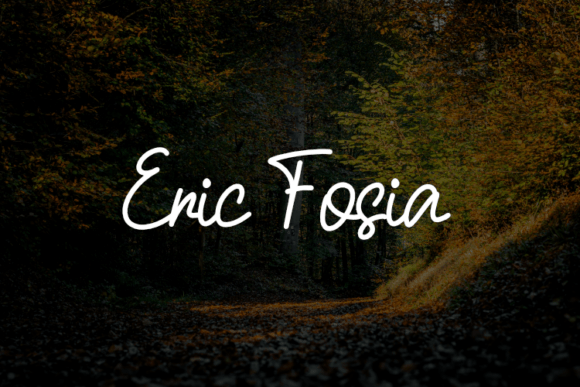
The Ultimate Design Companion: Eric Fosia Font
Remember that moment when you finally nailed the perfect design for your t-shirt campaign? The feeling of excitement and satisfaction was exhilarating, wasn’t it? It’s moments like these that make all the hard work worth it. But, what if you could take your designs to the next level and make them truly unforgettable? Enter the Eric Fosia Font – a versatile and powerful tool that’s about to revolutionize the way you create visually captivating designs.
As a designer, you understand the importance of having the right tools at your disposal. The Eric Fosia Font is a game-changer, offering seamless adoption across various project platforms and software. Its effortless adaptability makes it an invaluable asset for any creative project. Whether you’re working on a t-shirt design, a logo, or any other merchandise, the Eric Fosia Font is sure to elevate your design experience.
Eric Fosia Font Key Features
- Font Family: Eric Fosia Font is a script font family designed by Eric Fosia, offering a range of styles and weights.
- Size and Resolution: Designed to be used at medium to large sizes (around 12-48 points) for optimal legibility and aesthetics, with a resolution of 300 DPI.
- Unique Characteristics: Features a unique blend of elegance and playfulness, with intricate details and connections between letters, making it ideal for creative and artistic projects.
Eric Fosia Font Review
Overall, I was quite impressed with the Eric Fosia Font. It’s a solid choice for designers looking to add a touch of elegance to their projects. ✨ The font’s sleek lines and refined features make it perfect for luxury brands or high-end publications.
The font is highly customizable, with a wide range of weights and styles available. This makes it easy to find the perfect combination to suit your design needs. ✨ The font also supports a wide range of languages, making it a great choice for international projects.
However, there are a few limitations to consider. ⚠️ The font may not be the best choice for body text, as it can be a bit too ornate for long blocks of text. Additionally, the font may not be fully optimized for digital use, which can result in some pixelation at smaller sizes.
- Highly customizable with a wide range of weights and styles
- Supports a wide range of languages
- Sleek and refined features
- May not be the best choice for body text
- May not be fully optimized for digital use
In conclusion, the Eric Fosia Font is a solid choice for designers looking to add a touch of elegance to their projects. While it may have some limitations, it’s a great option for luxury brands or high-end publications.
The Eric Fosia Font is a versatile font suitable for various designs, including:
- Typography-based designs
- Print materials, such as business cards and brochures
- Web designs and digital content
For optimal results, use the Eric Fosia Font in conjunction with other clean and modern fonts to create a cohesive
Alternatives to Eric Fosia Font
Montserrat is a sans-serif font that is highly legible and versatile. It is a great alternative to Eric Fosia Font for modern designs that require a clean and minimalistic look.
Comparison to Eric Fosia Font: Montserrat has a more geometric and modern feel, while Eric Fosia Font has a more classic and elegant feel. Montserrat is also more condensed, making it suitable for smaller text sizes.
Open Sans is a clean and modern sans-serif font that is highly legible and suitable for a wide range of designs. It is a great alternative to Eric Fosia Font for designs that require a friendly and approachable tone.
Comparison to Eric Fosia Font: Open Sans has a more open and airy feel, while Eric Fosia Font has a more compact and elegant feel. Open Sans is also more versatile and suitable for both body text and headings.